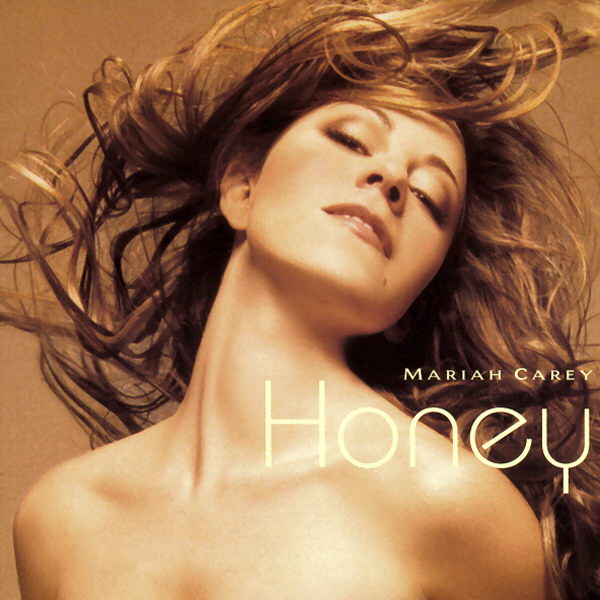
Honey Font
Fonts in UseHoney is a song by Mariah Carey, released in 1997 as the lead single from her album "Butterfly". It is an upbeat R&B and hip hop-influenced track that features a sample from the song "Hey DJ" by the World's Famous Supreme Team.
On the cover of the album, the font used for the album title bears a close resemblance to Bauhaus Light, a geometric sans serif font created by Edward Benguiat and Victor Caruso, while the font for the singer's name resembles Friz Quadrata by Ernst Friz.